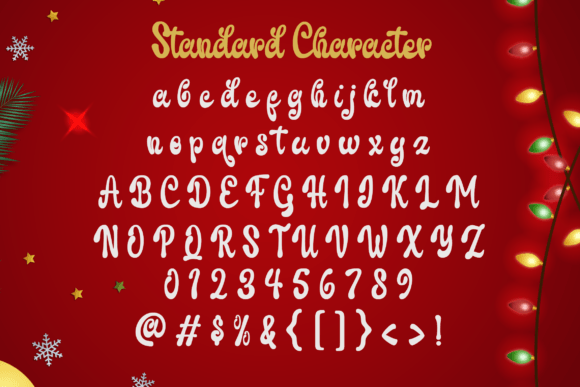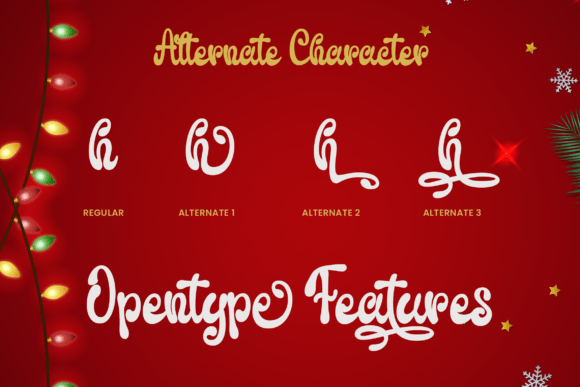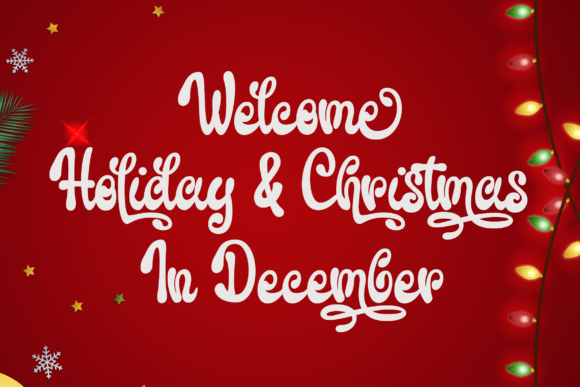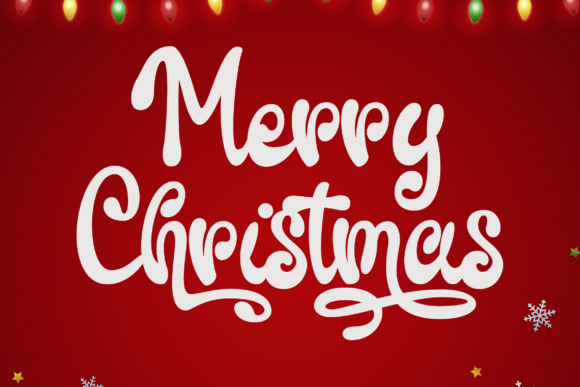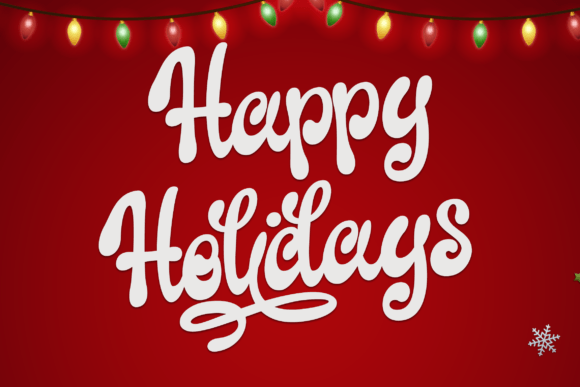
Introducing Christmas Onlovia Font: A Beautiful Handwritten Font for the Holiday Season
Are you looking for a font that captures the essence of the holiday season? Look no further than Christmas Onlovia Font, a beautiful and sweet handwritten font that’s perfect for adding a touch of elegance to your designs. In this article, we’ll take a closer look at the features of Christmas Onlovia Font and explore how it can be used to create stunning projects for both formal and informal occasions.
A Fresh, Clean, and Elegant Font
Christmas Onlovia Font is a fresh, clean, and elegant handwritten font that’s sure to impress. Its sweet and charming design makes it perfect for a variety of projects, from holiday cards and invitations to packaging and branding. The font’s clean lines and elegant curves give it a sophisticated look that’s sure to elevate your designs.
Versatile and Adaptable
One of the best things about Christmas Onlovia Font is its versatility. It can be used for both formal and informal projects, making it a great addition to any designer’s toolkit. Whether you’re creating a festive holiday card or a professional-looking brochure, Christmas Onlovia Font is sure to make a great impression.
Christmas Onlovia Font is PUA encoded, which means that you can access all of the glyphs and swashes with ease. This makes it easy to customize your designs and add a personal touch. With PUA encoding, you can easily access the font’s built-in features, such as ligatures, stylistic alternates, and swashes, to create unique and eye-catching designs.
Christmas Onlovia Font is a great choice for designers and crafters who want to add a touch of elegance to their projects. Whether you’re creating digital designs or handmade crafts, this font is sure to inspire. Its sweet and charming design makes it perfect for a variety of projects, from holiday-themed crafts to professional-looking designs.
Ideas for Using Christmas Onlovia Font
So, how can you use Christmas Onlovia Font in your designs? Here are a few ideas to get you started:
- Holiday cards and invitations: Use Christmas Onlovia Font to create beautiful and elegant holiday cards and invitations that are sure to impress.
- Packaging and branding: Add a touch of elegance to your packaging and branding with Christmas Onlovia Font.
- Digital designs: Use Christmas Onlovia Font to create stunning digital designs, such as social media graphics and blog posts.
- Handmade crafts: Add a personal touch to your handmade crafts, such as scrapbooking and card making, with Christmas Onlovia Font.
Tips for Getting the Most Out of Christmas Onlovia Font
To get the most out of Christmas Onlovia Font, here are a few tips:
- Experiment with different font sizes and colors to find the perfect look for your design.
- Use the font’s built-in features, such as ligatures and swashes, to add a personal touch to your designs.
- Pair Christmas Onlovia Font with other fonts to create a unique and eye-catching design.
- Don’t be afraid to get creative and try new things – Christmas Onlovia Font is a versatile font that’s perfect for experimenting with.
Christmas Onlovia Font is a beautiful and sweet handwritten font that’s perfect for adding a touch of elegance to your designs. Its fresh, clean, and elegant design makes it perfect for a variety of projects, from holiday cards and invitations to packaging and branding. With its PUA encoding and versatile design, Christmas Onlovia Font is a great choice for designers and crafters who want to create stunning projects for both formal and informal occasions.